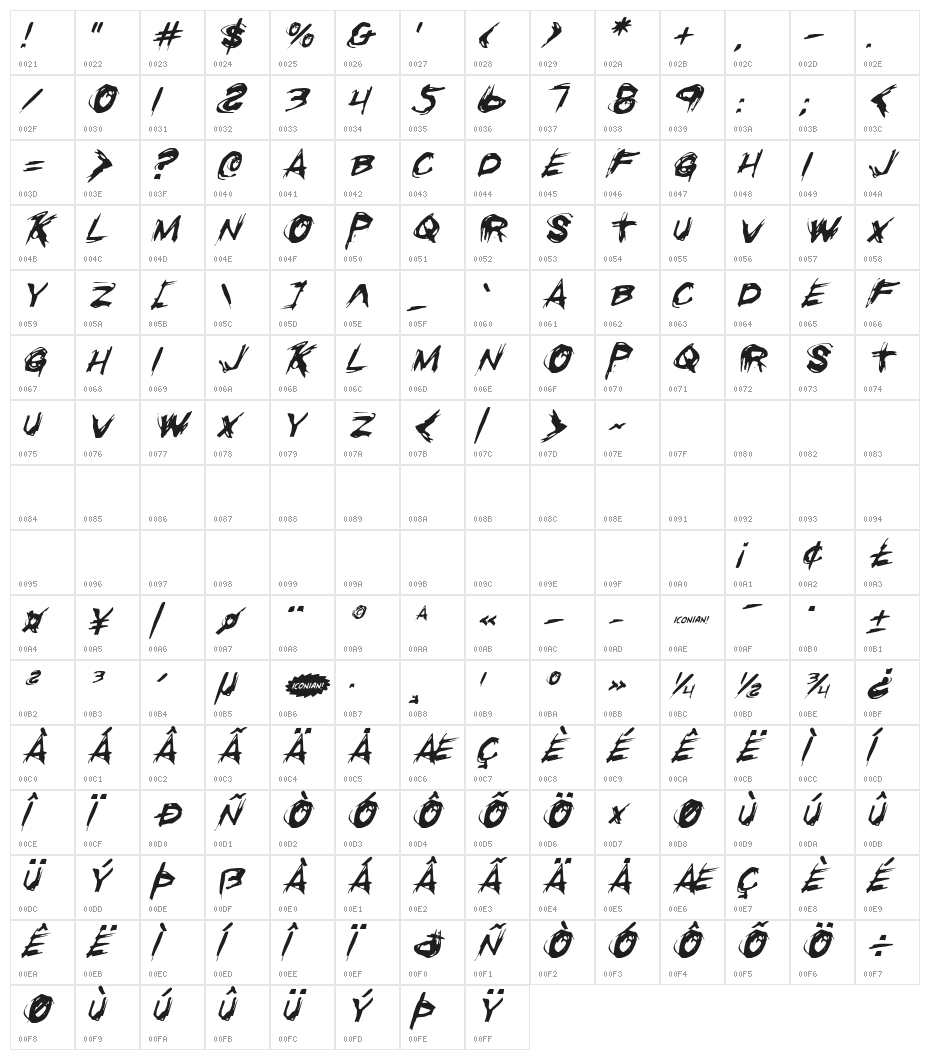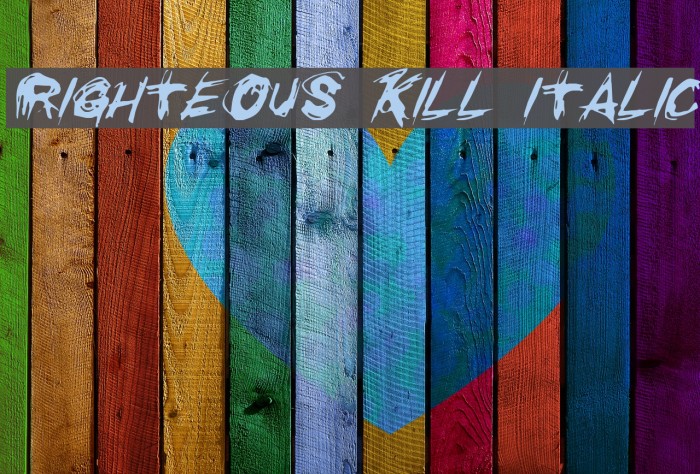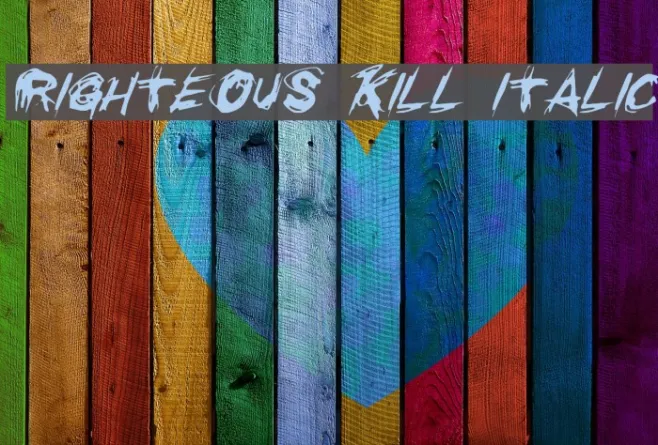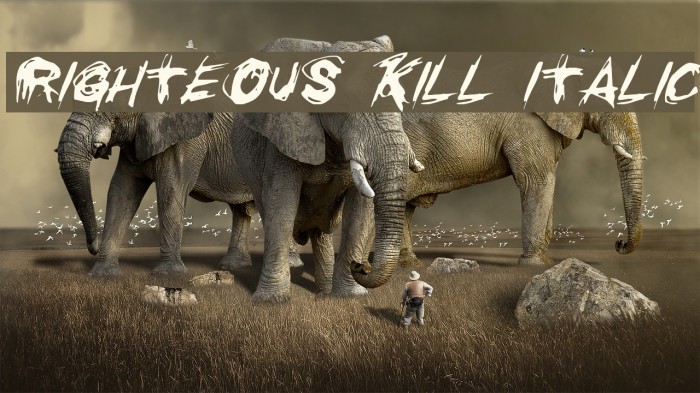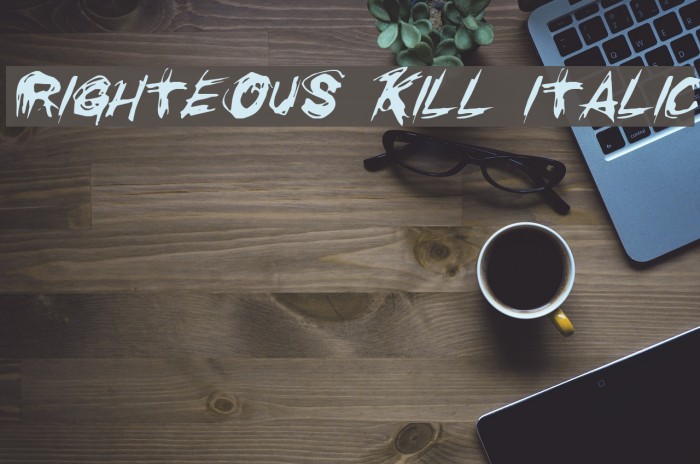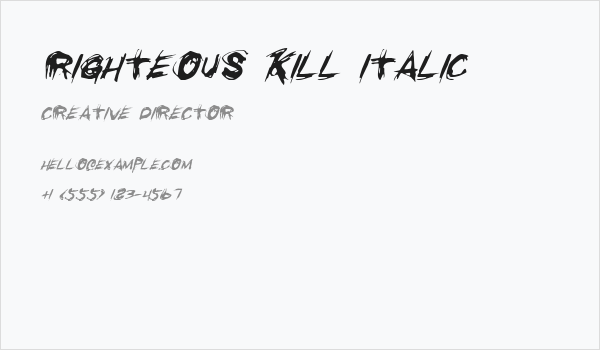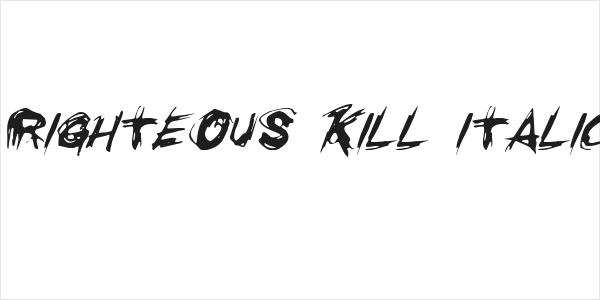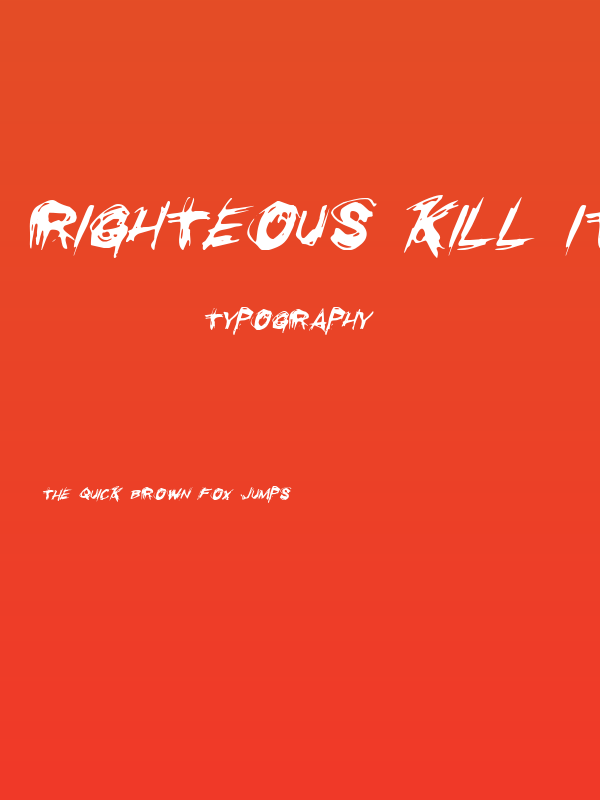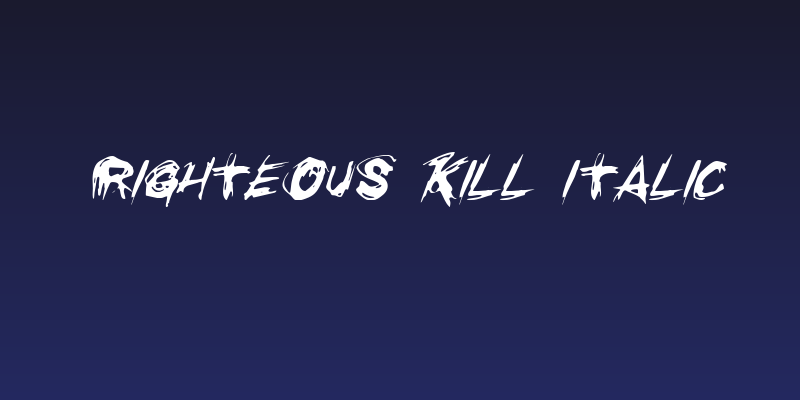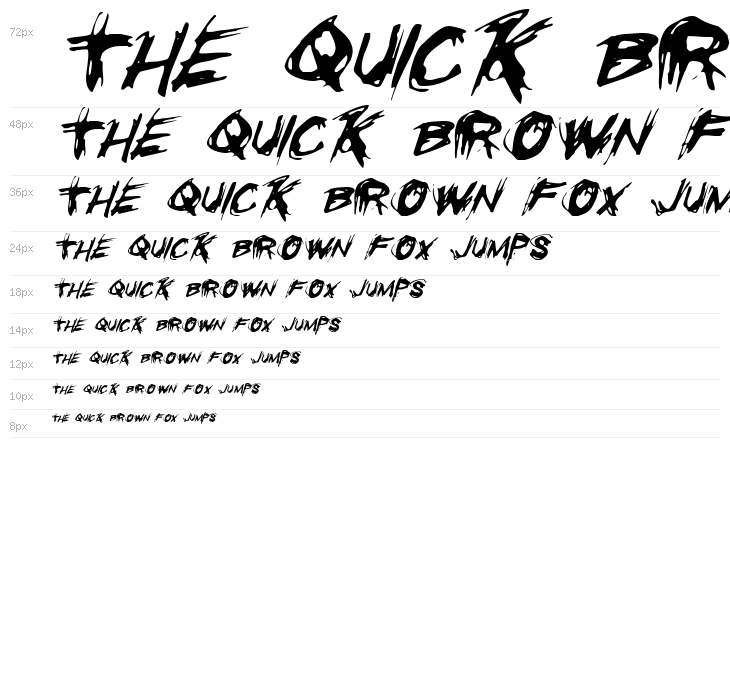
Righteous Kill Italic Font
Righteous Kill Italic Description
This font features a bold and dynamic style with an aggressive, brush-like appearance. The letters are sharply angled and have a distressed, grunge effect, giving them a raw and energetic feel. The strokes are uneven, with some parts appearing thicker, adding to the chaotic and intense look. This font is designed to stand out and make a strong visual impact, perfect for projects that require a dramatic and edgy aesthetic.